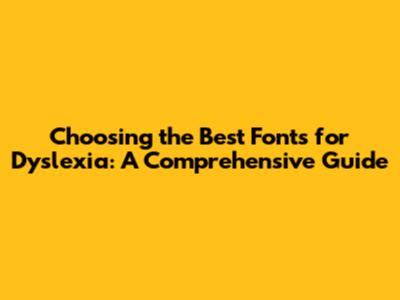
OpenDyslexic: This font was specifically designed with dyslexia in mind. It has weighted bottoms, unique letter shapes, and generous spacing. It's a popular choice for a reason! It's one of the most widely recommended and used fonts. The OpenDyslexic font is designed with a unique emphasis on visual clarity and readability. The key features of OpenDyslexic include distinct letter shapes, slightly heavier weights at the bottom of the letters to provide a sense of visual grounding, and increased spacing between letters and words to reduce visual clutter. These design elements aim to minimize the common challenges faced by individuals with dyslexia, such as letter confusion, flipping, and visual stress. Because it was developed with dyslexia in mind, it is considered a good font for dyslexic readers. Many dyslexic readers report significant improvements in reading speed and comprehension, as the font allows them to better distinguish individual letters and words without straining their eyes. The font's availability across multiple platforms and its open-source nature further contribute to its widespread adoption and positive impact on literacy for people with dyslexia.
Dyslexie: This font is another font specifically made for dyslexic readers. Dyslexie font has a lot of the same features as OpenDyslexic, with each letter's unique shape to reduce letter swapping and reversing. It's specifically designed to make reading easier for people with dyslexia. The designers of Dyslexie focused on several key features to create a font that's easy to read for individuals with dyslexia. The font's most distinctive feature is its carefully crafted letter shapes, which are designed to minimize confusion between similar letters, such as 'b' and 'd'. Each letter has a unique form, making it easier for the reader to differentiate between them. In addition to these features, Dyslexie includes features that help to make reading easier. The design includes a generous spacing between letters, words, and lines, which helps to reduce the visual clutter that can be overwhelming for dyslexic readers. Also, each letter is deliberately positioned to provide a stable, clear form that supports visual tracking and promotes better comprehension. This also helps with the reading experience overall.
Lexia Readable: Lexia Readable is designed with readability in mind. It is considered a modern sans-serif typeface, which means it lacks the serifs (the small strokes at the end of some letters). Its design is centered on simplicity and clarity. The most distinctive feature is its unique and clear letterforms, making them easy to distinguish. Also, the font's design incorporates adequate spacing between letters and words, which allows for smooth reading. This design helps to reduce visual stress and increase reading speed. The overall structure and weight of the font ensure that it does not strain the eyes, providing comfort and facilitating easy reading. The font's design and features aim to make reading easier for people with dyslexia and other reading difficulties.
Comic Sans (Yes, Really!): I know, I know. Comic Sans has a bad rap. But here's the thing: the slightly irregular shapes and spacing can actually be helpful for some dyslexic readers. It’s also important to note that the use of Comic Sans is not a universal recommendation, and its effectiveness can vary depending on individual preferences. Some people with dyslexia find it easier to read because its irregular shapes and spacing help them to distinguish between letters. However, others may find it distracting or visually overwhelming. Ultimately, the choice of font is a personal one, and what works for one person may not work for another. While Comic Sans has its detractors, its potential benefits for those with dyslexia should not be discounted.
Other Sans-serif Fonts: Aside from those fonts, here are a few more to check out: Arial, Helvetica, and Verdana. Experiment with these fonts to see how they feel to you. Many people with dyslexia find that sans-serif fonts, in general, are easier to read than serif fonts.
Hey everyone, let's talk about something super important, especially if you or someone you know deals with dyslexia. We're diving into the best fonts for dyslexia! Choosing the right font can make a world of difference in reading ease and comprehension. Seriously, it's like finding the perfect pair of glasses. In this article, we'll explore why font choice matters, what makes a font dyslexia-friendly, and which fonts are actually recommended by experts. Ready to make reading a whole lot easier? Let's get started!
Why Font Choice Matters for People with Dyslexia
So, why all the fuss about fonts? Well, for those of us with dyslexia, reading can be a real struggle. Letters can sometimes appear to dance around on the page, swap places, or blur together. It's like trying to navigate a crowded dance floor! The wrong font can worsen these effects, leading to frustration, eye strain, and a general dislike of reading. But here's the good news: the right font can significantly alleviate these issues. It's like finding a clear path through that dance floor, making the letters easier to distinguish and follow. The right font can reduce visual stress, making reading less tiring and more enjoyable. It can also improve reading speed and comprehension. Imagine being able to read without feeling like you're constantly fighting against your brain. That's the power of a dyslexia-friendly font. Many individuals with dyslexia report that certain fonts help them to read more comfortably and efficiently. This improvement can be attributed to several factors. First, the design of the letterforms themselves plays a crucial role. Fonts that have distinct and unique letter shapes are easier for the brain to process, as they help differentiate between letters that can often appear similar, such as 'b' and 'd' or 'p' and 'q'. Second, the spacing between letters and words is also vital. Fonts with generous spacing can prevent letters from running together, reducing the visual clutter that can be overwhelming for dyslexic readers. Finally, the overall weight and style of the font contribute to readability. Fonts that are not too bold or condensed are often preferred, as they are less likely to create a dense visual appearance that can strain the eyes. By choosing a font that incorporates these features, individuals with dyslexia can improve their reading experience and better engage with the text. This is why paying attention to font choice is more than just an aesthetic preference; it's a practical tool for improving accessibility and literacy.
The Science Behind It
It's not just about preference; there's some serious science backing up the impact of fonts. Studies have shown that certain font characteristics help our brains process text more efficiently. For example, fonts with a slightly heavier weight at the bottom can help anchor the letters, making them less likely to flip or invert. The spacing between letters and words is also super important, as it gives our eyes and brain a chance to breathe. The consistent design of each letter and character plays an important role. Unique letterforms help the brain to differentiate letters from one another. A larger x-height also helps in readability. This is the height of the lowercase 'x' compared to the overall height of the font. A large x-height means more space for the individual letters, aiding in recognition. When all of these elements come together, they create a font that's easier on the eyes and brain, leading to better reading outcomes. A 2006 study published in the Journal of Learning Disabilities found that sans-serif fonts often improved reading speed and accuracy for students with dyslexia. In another study, researchers found that the use of specialized fonts and formatting options could enhance the reading performance of children with dyslexia by reducing the cognitive load required to read. Furthermore, a growing body of research highlights the benefits of fonts designed with specific features to address common challenges faced by dyslexic readers. These features include unique letter shapes, increased spacing, and a consistent baseline, all of which contribute to reducing visual stress and improving overall readability. So, it's not just about picking a font that looks good; it's about picking one that works with the way the brain processes information. So, the science is clear. Choosing the right font isn't just a matter of personal preference; it's a key strategy for improving reading accessibility and literacy for individuals with dyslexia.
Key Features of Dyslexia-Friendly Fonts
Alright, so what exactly makes a font dyslexia-friendly? Let's break down the key features, shall we?
Firstly, distinct letter shapes are a must. Think about it: letters that look too similar can easily be confused, especially when the brain is already working overtime. Fonts like Arial, Helvetica, and Times New Roman, which were once considered standard, can sometimes create issues. For example, the letters 'b' and 'd' or 'p' and 'q' can appear quite similar. Dyslexia-friendly fonts are designed to have unique letterforms that make these distinctions crystal clear. Next up is consistent letter spacing. Overcrowded letters are a reading nightmare. Dyslexia-friendly fonts are crafted with ample space between letters and words, preventing them from blurring together. This spacing allows the eyes to easily identify and follow each word, reducing visual clutter and strain. Also, the weight and style of the font is essential. Fonts that are too bold or condensed can create a dense visual experience. Dyslexia-friendly fonts typically have a slightly heavier weight at the bottom of the letters to provide better anchoring and reduce the chance of letters flipping. These fonts often have a simpler, cleaner design to avoid overwhelming the reader. Also, a larger x-height (the height of the lowercase 'x') can make a big difference, as it allows for more space within the letters, making them easier to recognize. Features like this are designed to make reading smoother and more enjoyable. By incorporating these key elements, dyslexia-friendly fonts aim to reduce visual stress, improve reading speed, and enhance overall comprehension. If you're looking for a font to use, these features are essential to finding a readable font.
More Features
Beyond those key features, there are a few other things that can help: a good baseline. This is where each letter sits on the line. A clear, consistent baseline helps the eye follow the text without getting lost. Font weight can also play a role. A slightly heavier weight can make the letters more distinct, while too much weight can make the text look blurry. The most effective fonts often include a balance of these different design elements. By understanding these features, you can make informed choices to improve your reading experience. It's about finding a font that works with the brain, not against it.